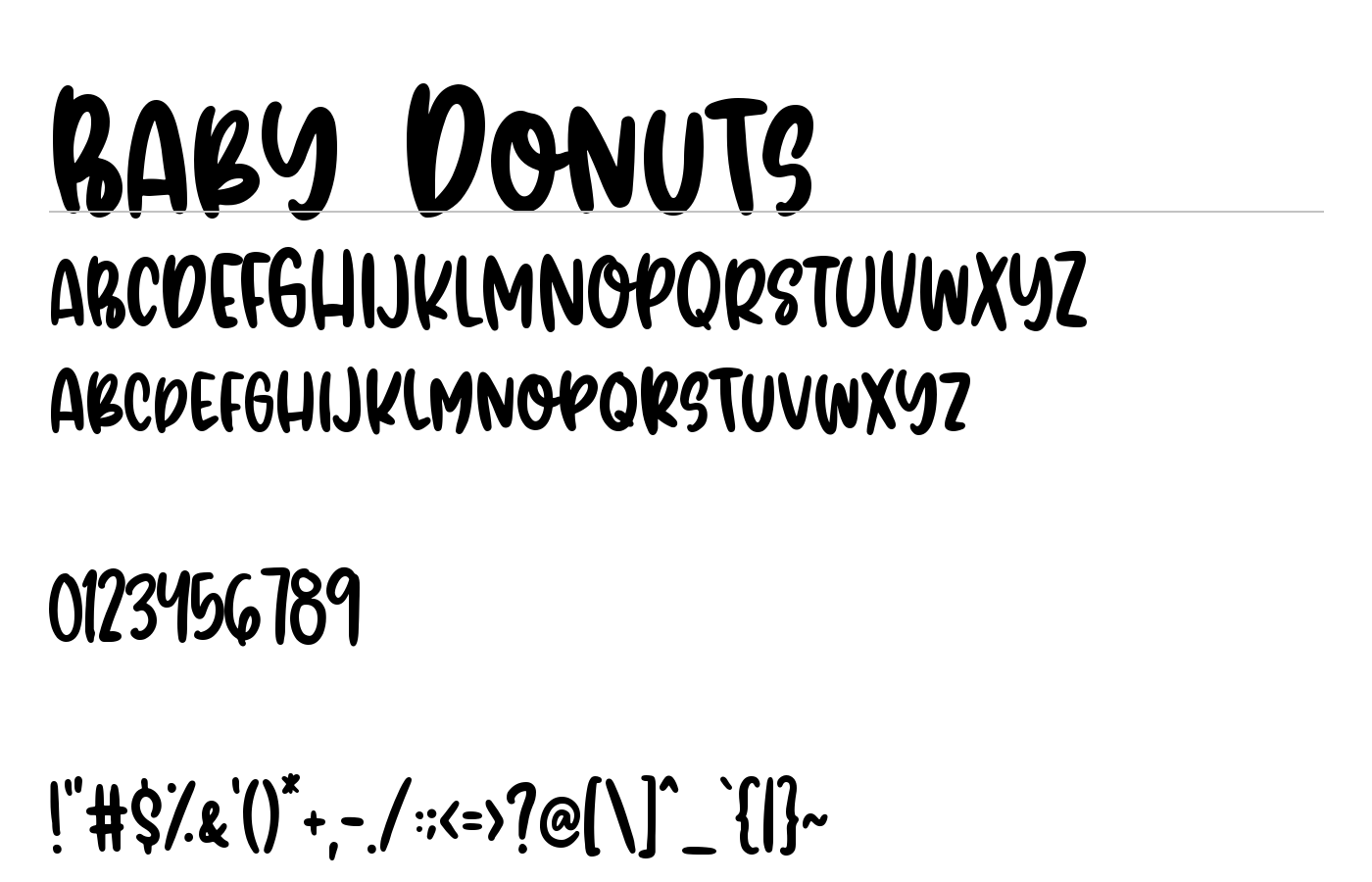
Baby Donuts is a playful and lively handwritten sans serif font with rounded, bold strokes that give it a youthful and casual feel. Its tall, narrow letterforms and quirky shapes make it perfect for fun, informal designs such as children’s products, party invitations, and creative branding. This font works well in headlines and logos where a friendly and approachable personality is desired.
Baby Donuts Font
About Baby Donuts Font